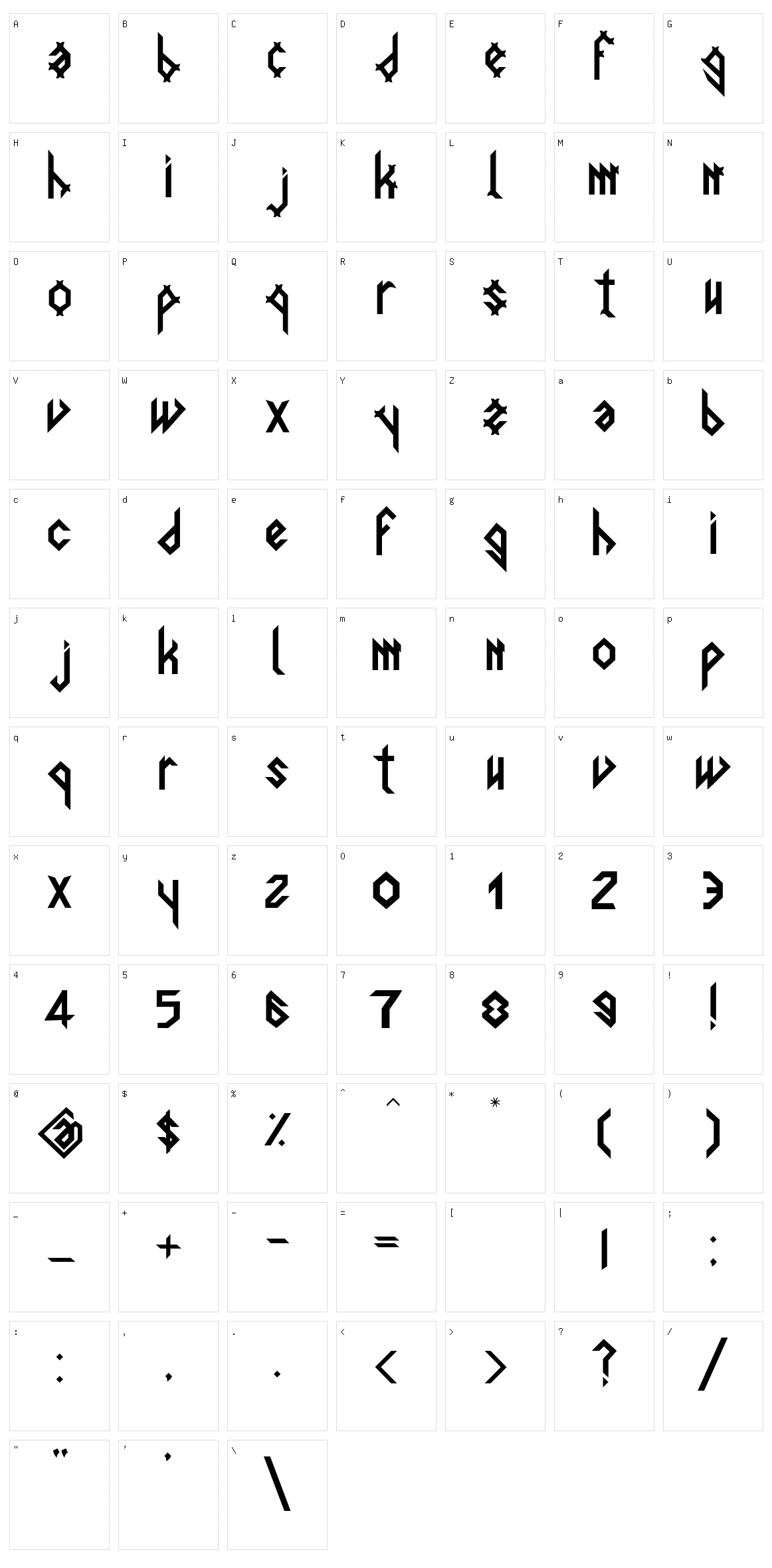
Spigulus
Designed by: Soolid
* Created on August 2010 by *
* Alberto Alberti and Luca Zamoc *
* at Soolid comunicazione *
As you'll notice spigulust not a complete font set but a
work in progress that requires many adjustments and bug fixes.